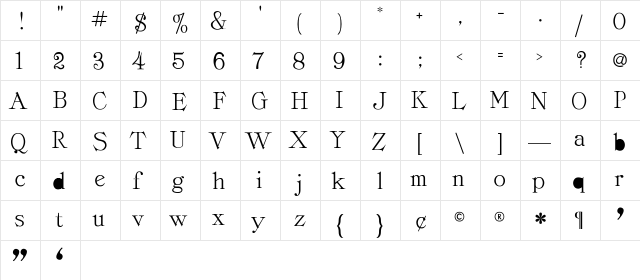
Cordella-Roman Regular
Design Context for Cordella-Roman Typeface
Cordella-Roman takes a measured approach to typography — its balanced proportions and neutral character make it a reliable workhorse for both digital and print work.
Pro Tip: Pair Cordella-Roman with a font of contrasting weight or personality to build a more expressive typographic hierarchy.